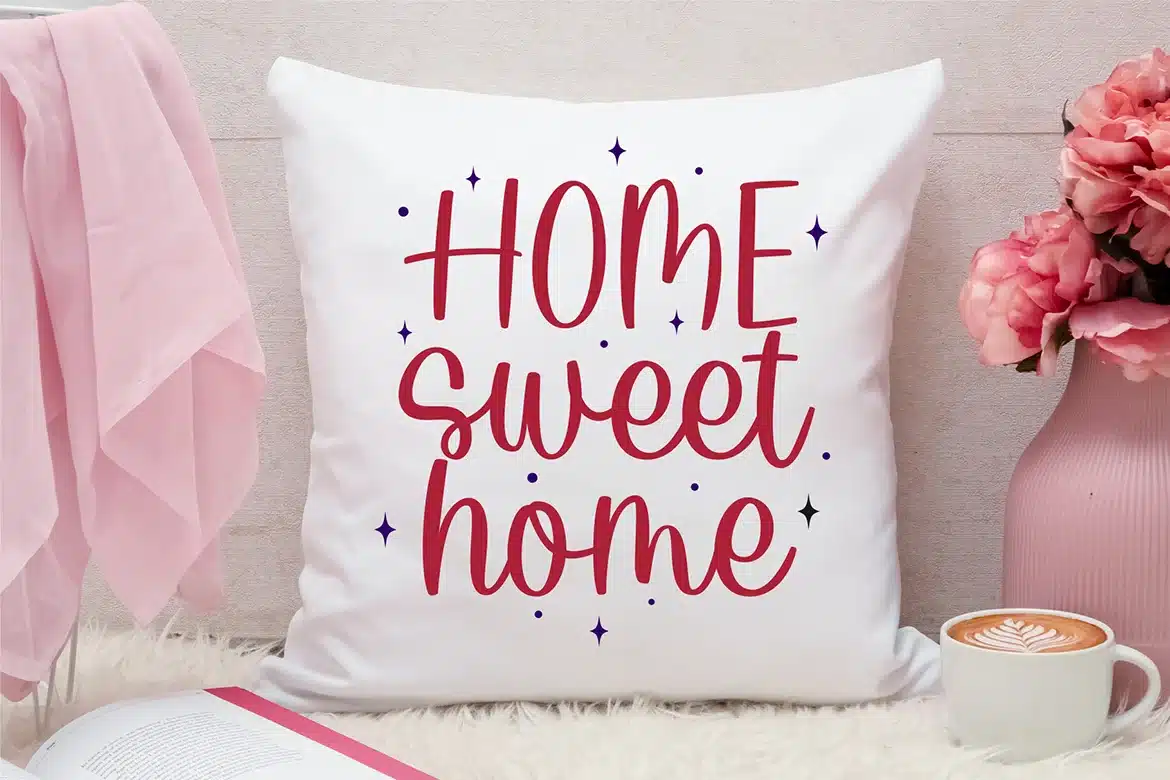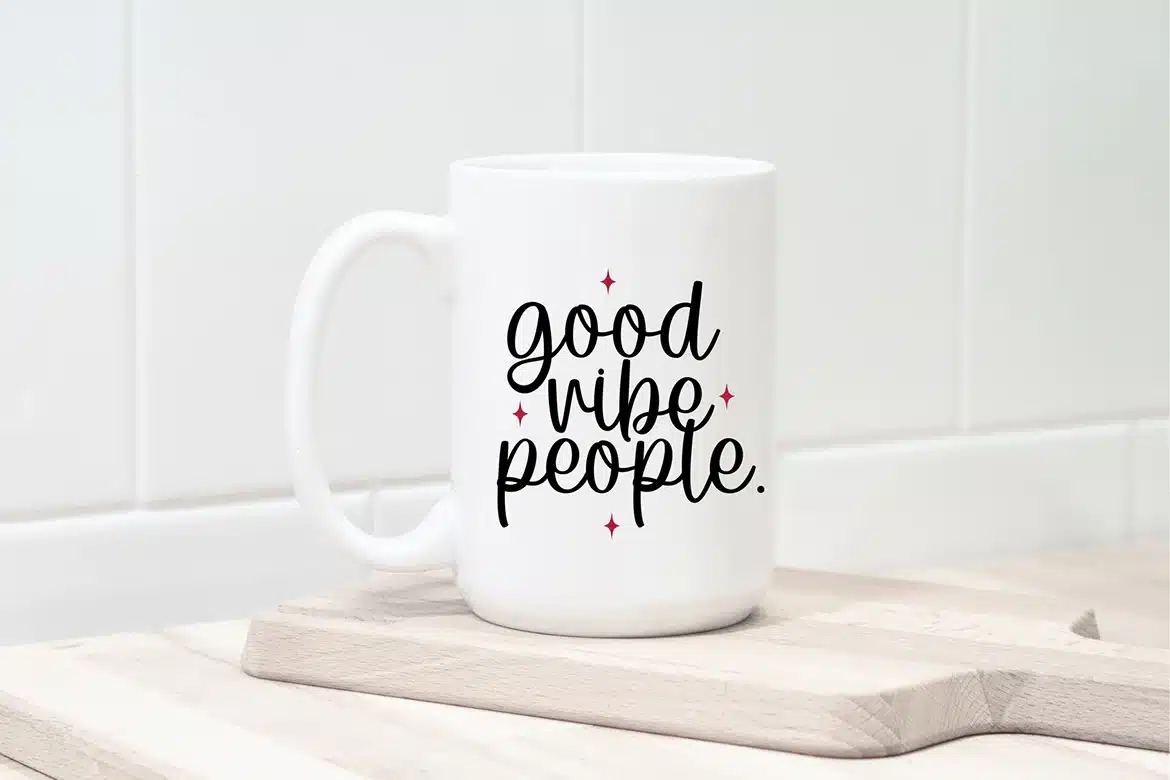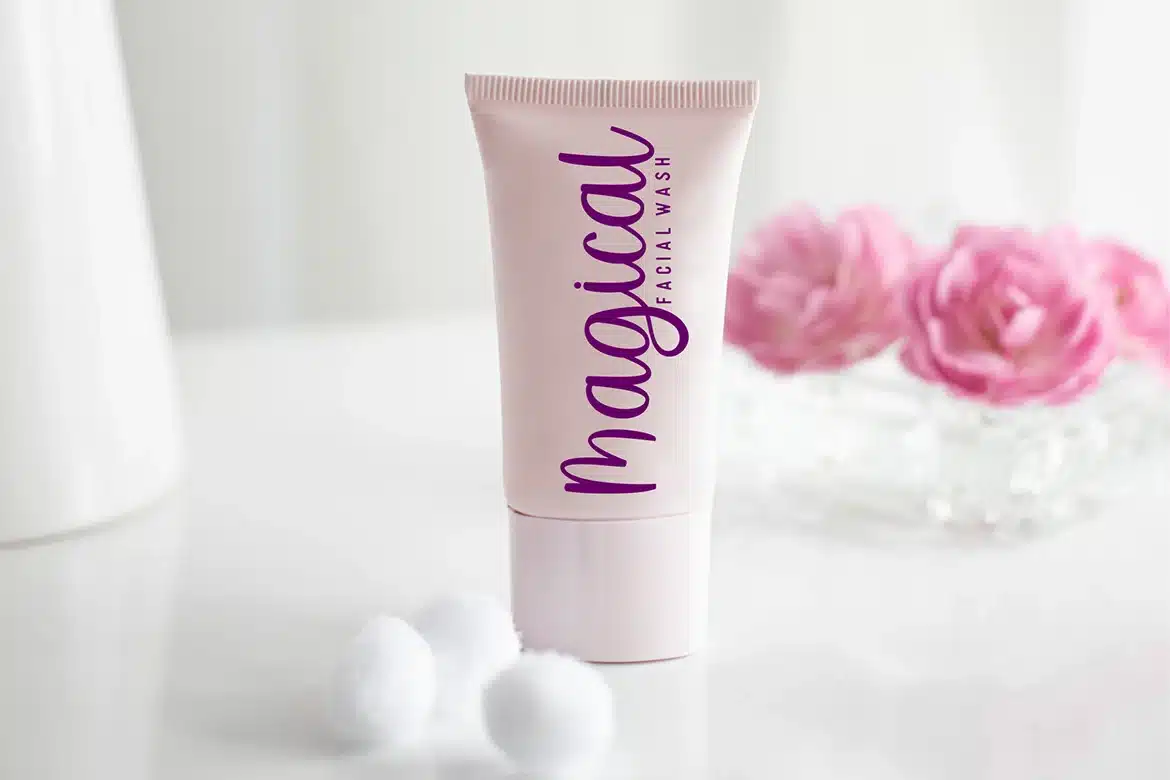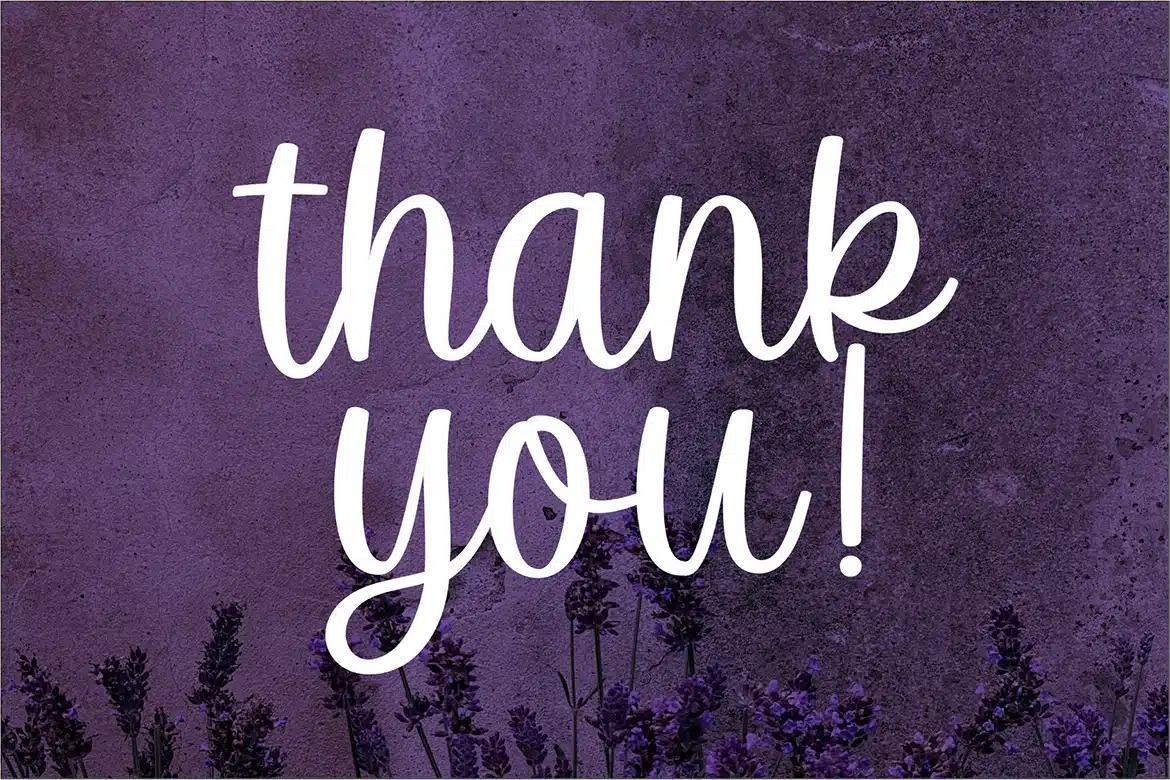
Sweet Lavender Font
Sweet Lavender Font is a modern Handwritten Script font.
It's perfect for branding, wedding invitations, photography, Neon Sign, bloggers, logos, greeting cards, Logo, Quotes and more.